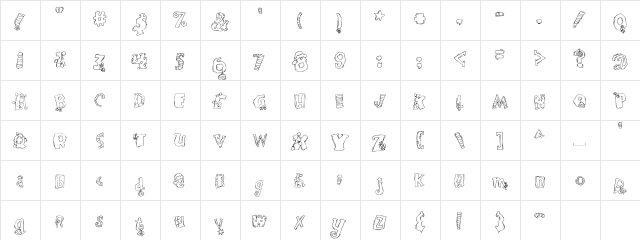
LDJ Christmas Fun Regular
Design Context for LDJ Christmas Fun Typeface
LDJ Christmas Fun trades formality for fun, with bouncy, characterful letterforms that bring warmth and energy to any project.
Font Pairing: Pairs well with a rounded or humanist sans for body copy, maintaining the friendly tone without relying on LDJ Christmas Fun to carry extended reading.
Pro Tip: Avoid using LDJ Christmas Fun for long passages of text — it works best for headlines, labels, and short calls to action.